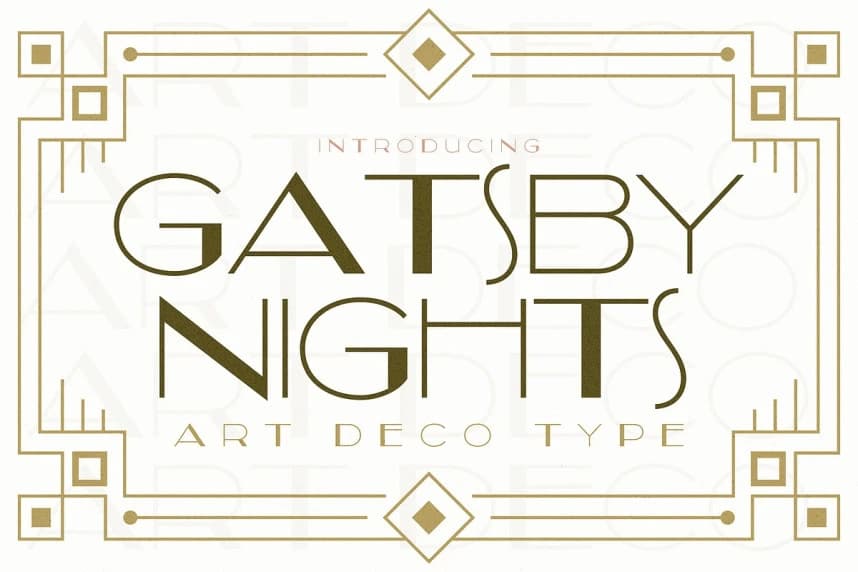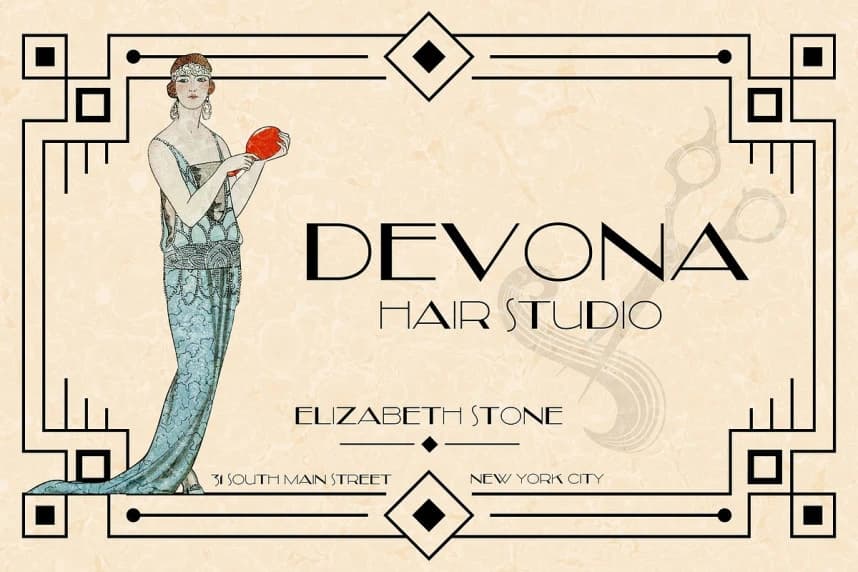
Gatsby Nights Font
Gatsby Nights Font, a striking Art Deco typeface that captures the opulence, rhythm, and romance of a bygone era. With its elegant geometry, lavish curves, and vintage charm, this font feels right at home on grand marquees, luxury branding